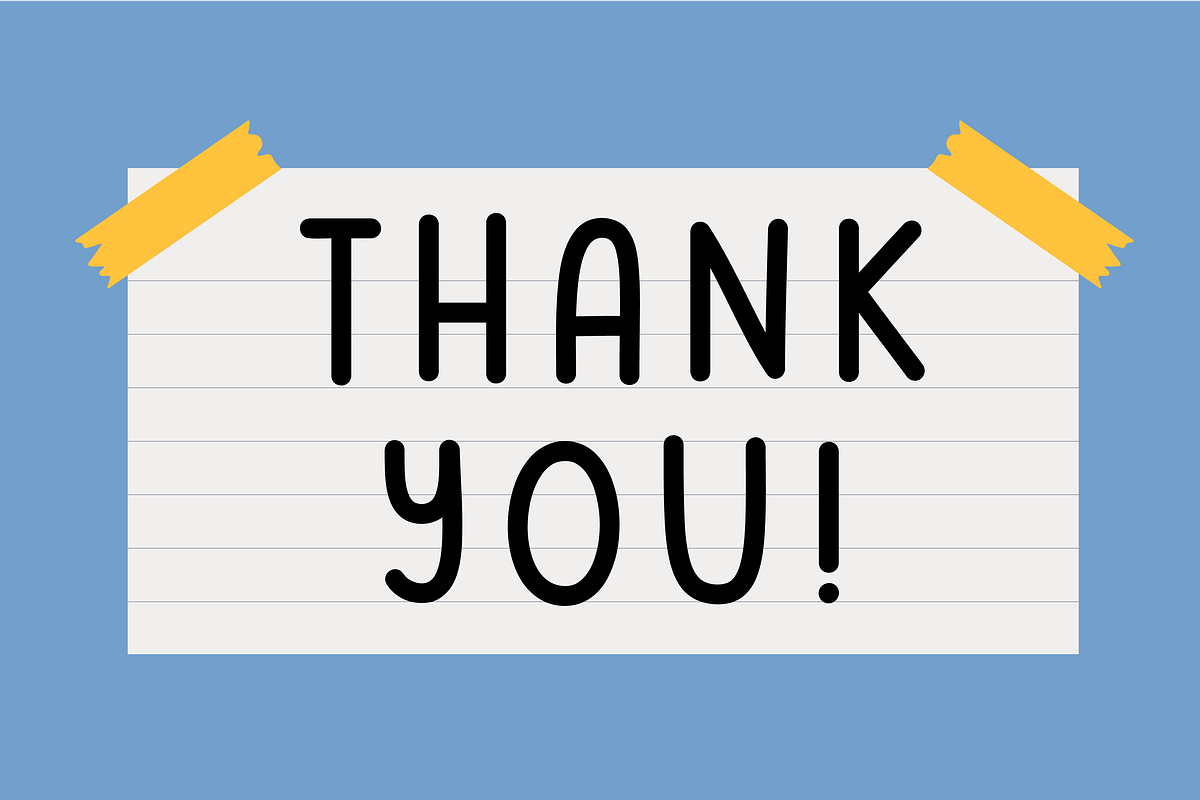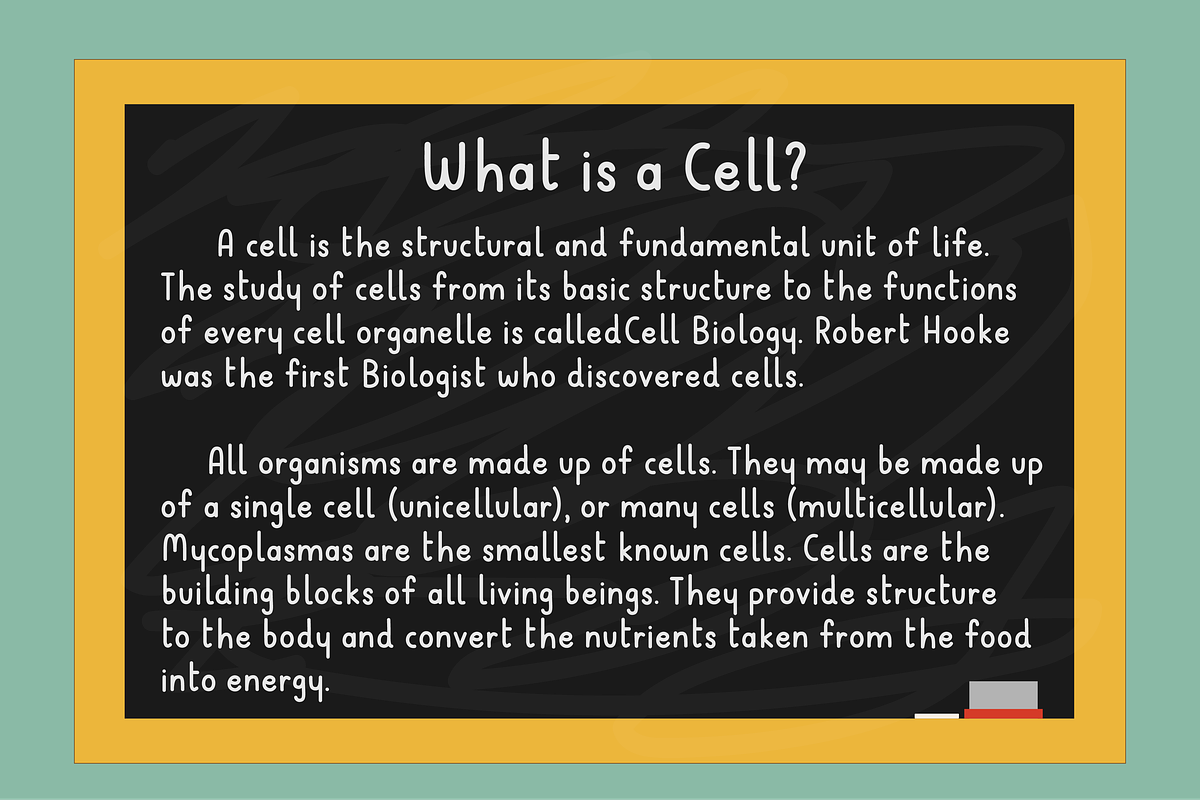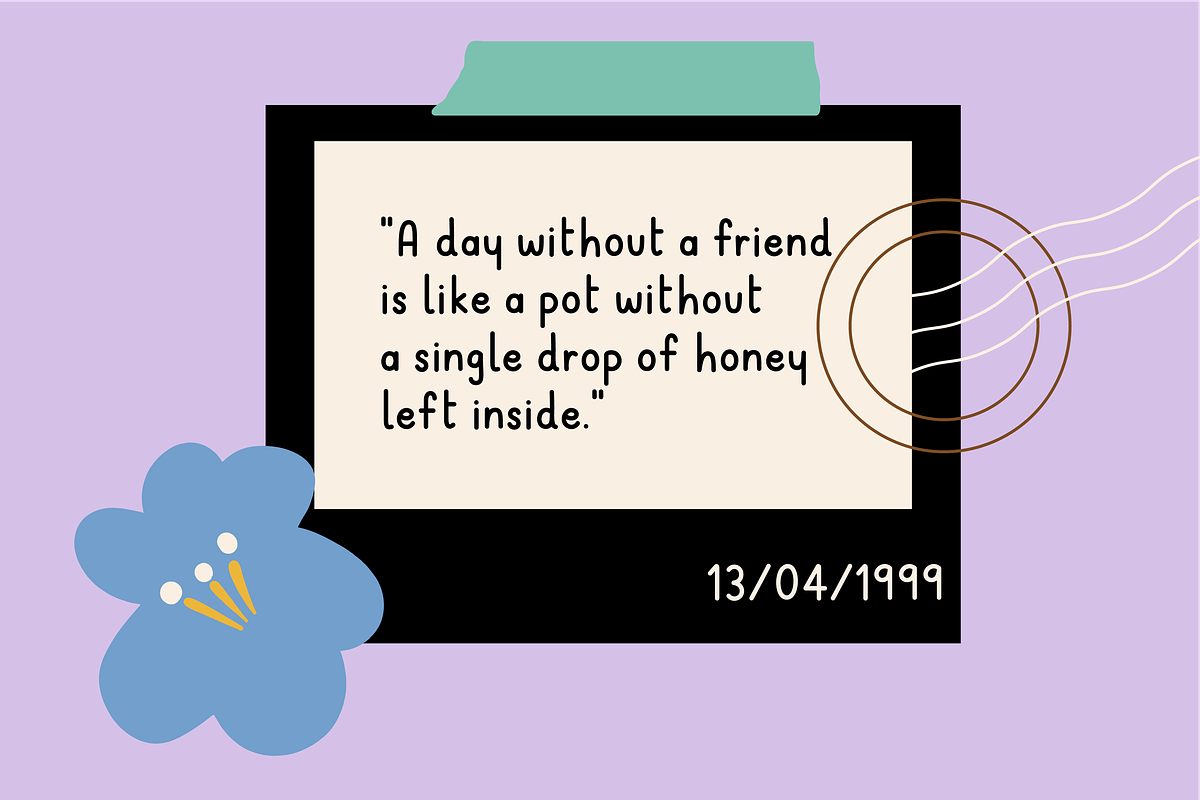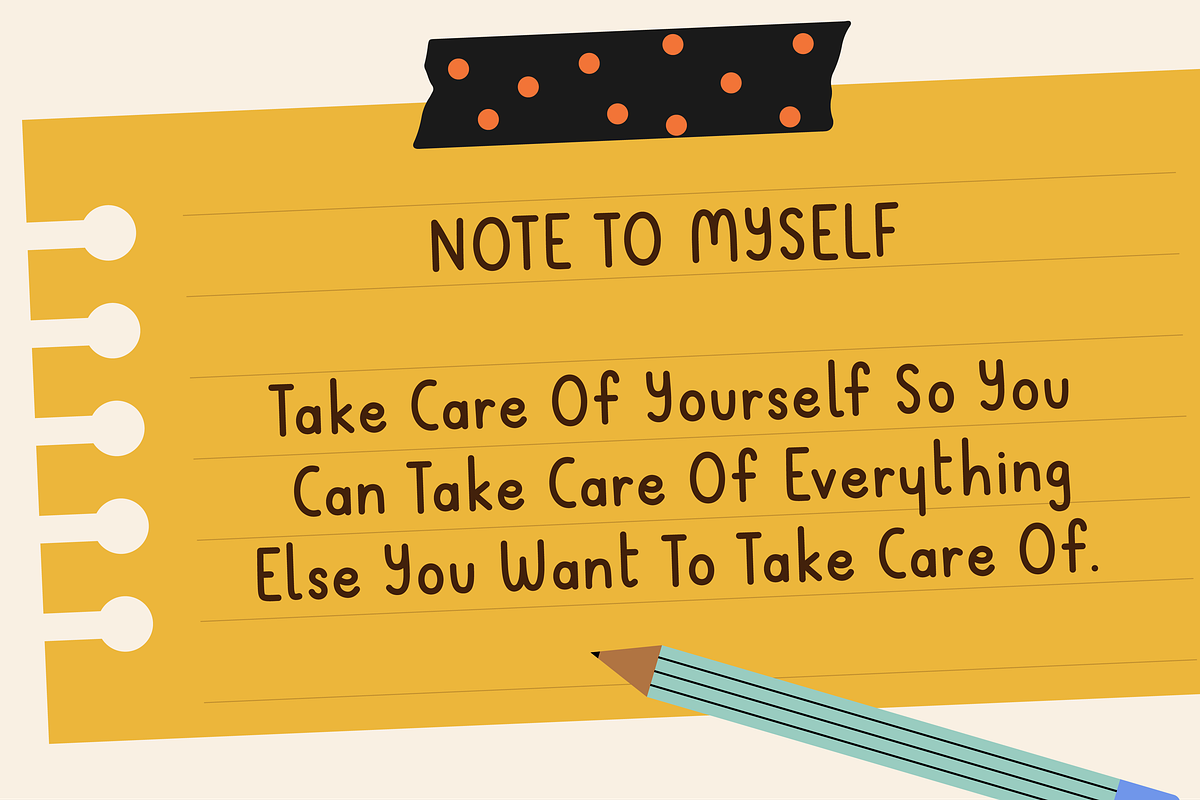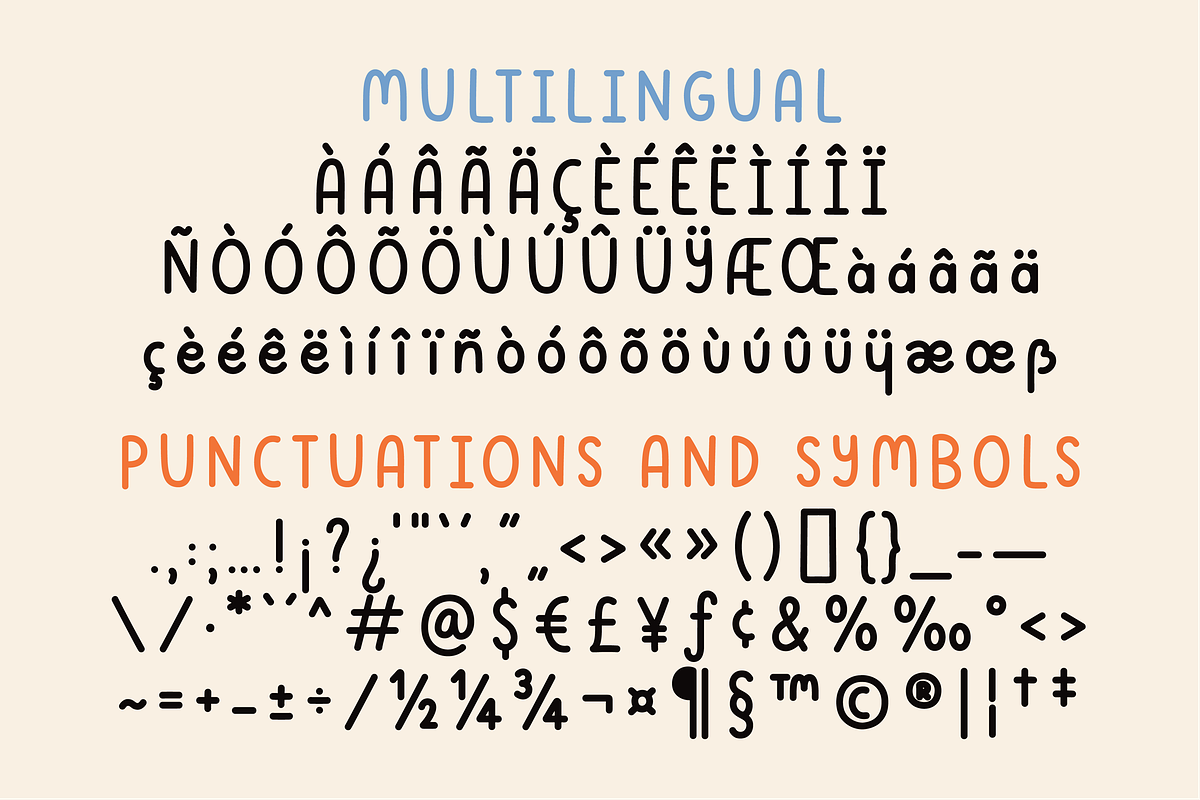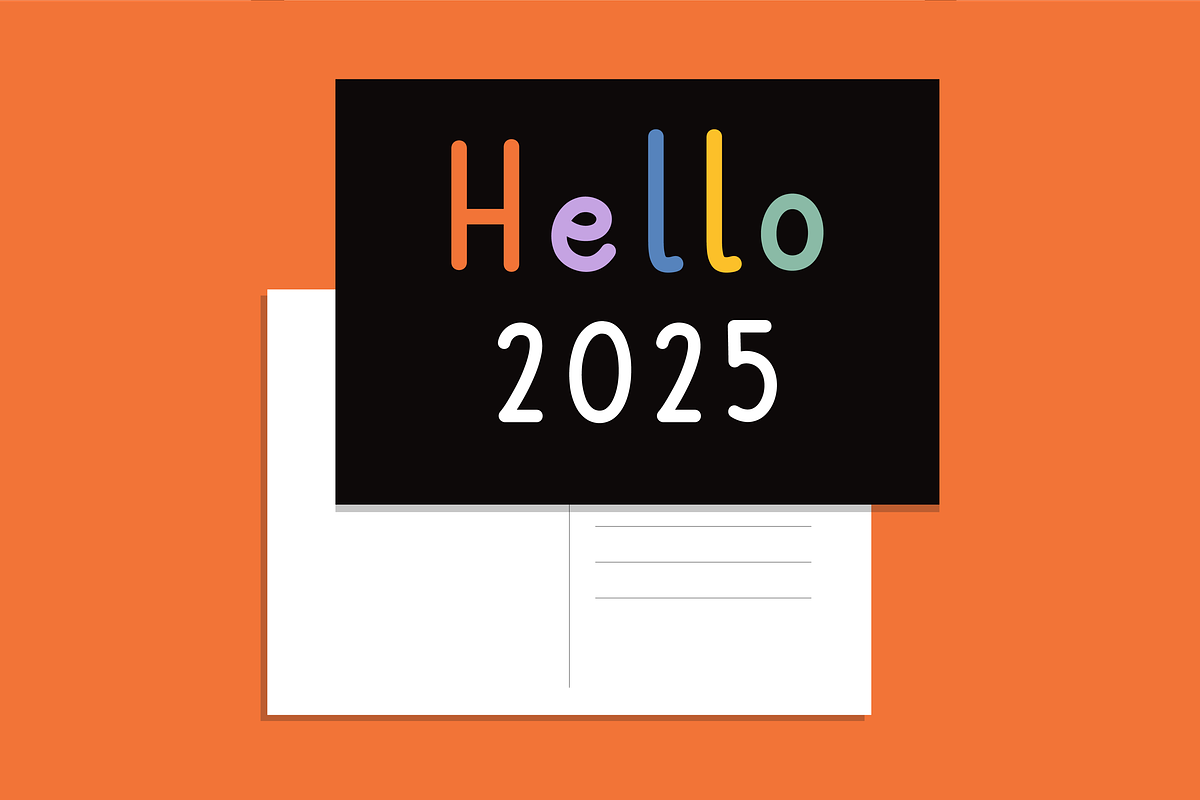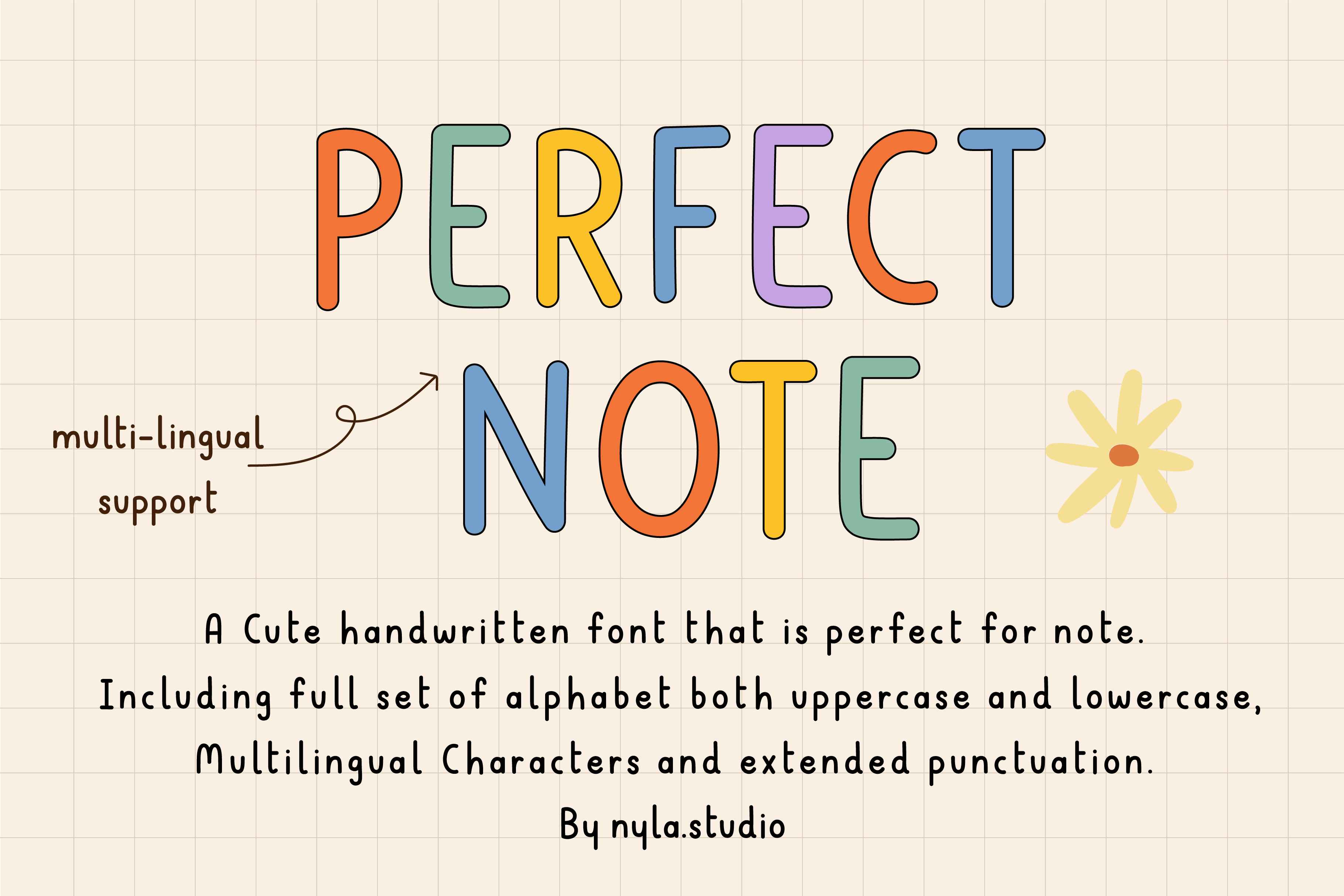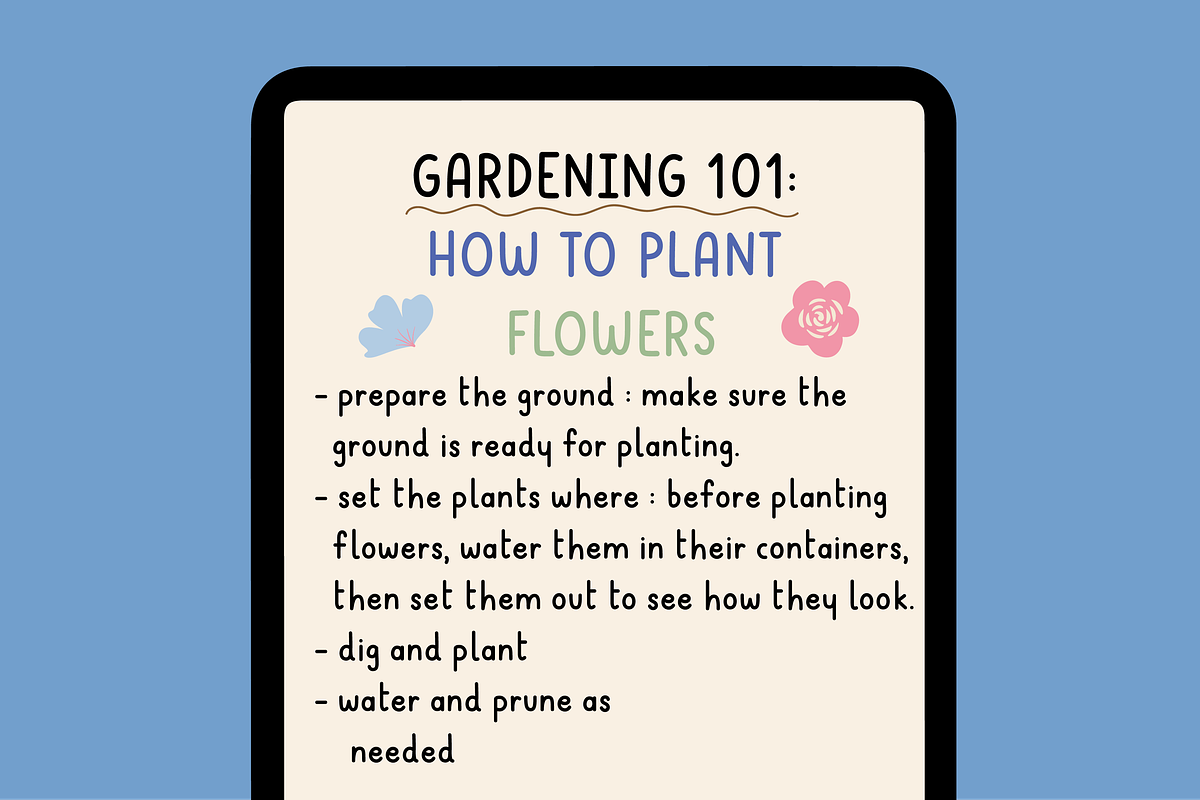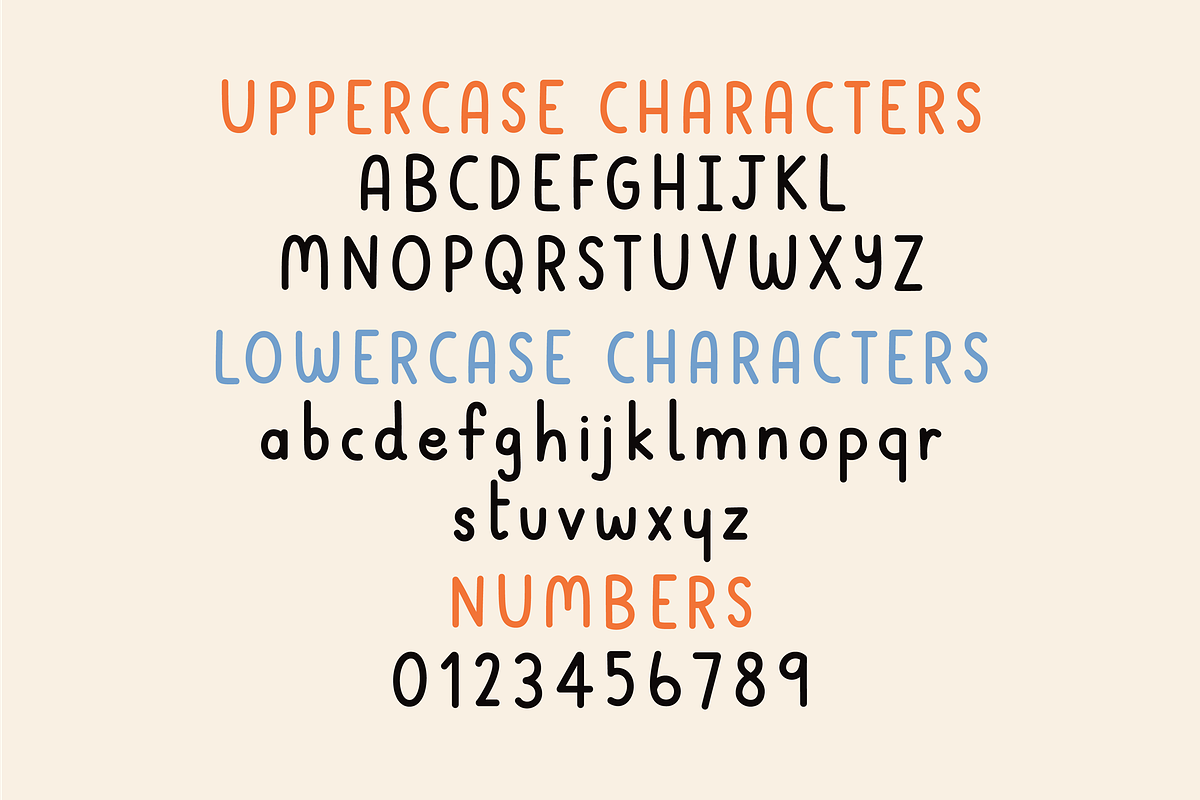
Perfect notes font
PERFECT NOTES is a neat and cute handwritten font. Perfect for everyday use such as writing diary or note, creating posters, logos, greeting cards, packaging and so much more!
Perfect notes Font Features
- Full set of alphabet both uppercase and lowercase.
- Extended punctuation.
- Multilingual Characters support.